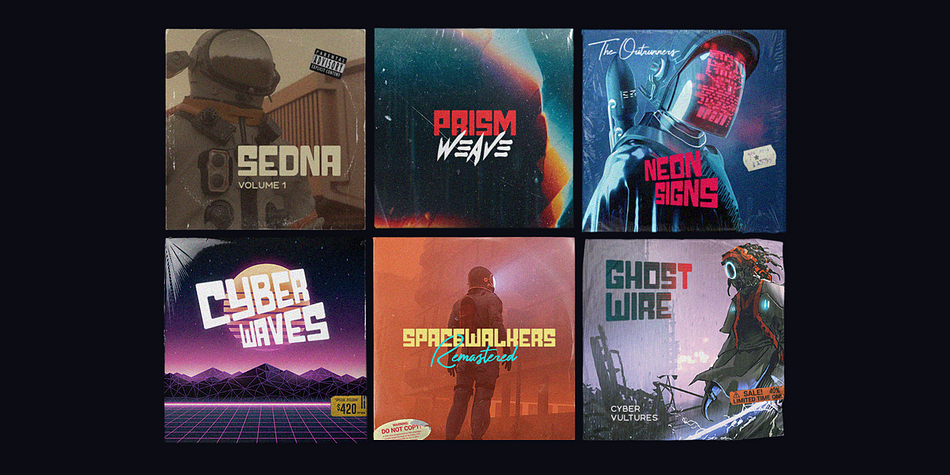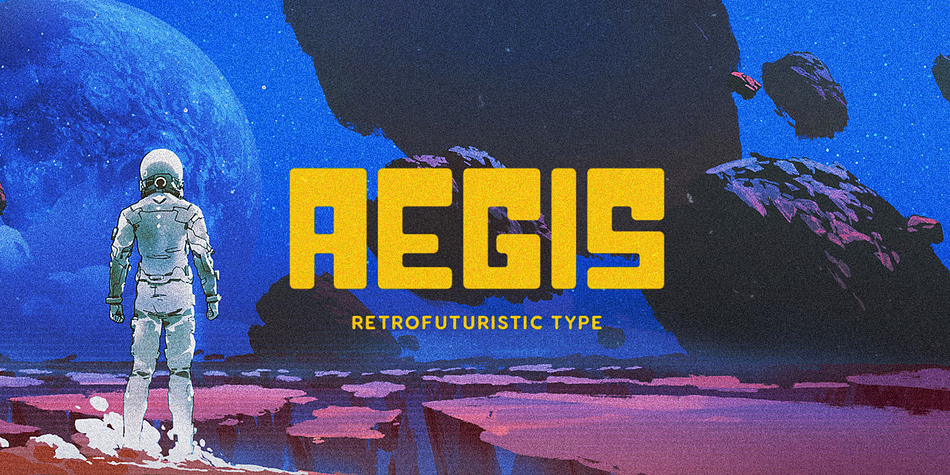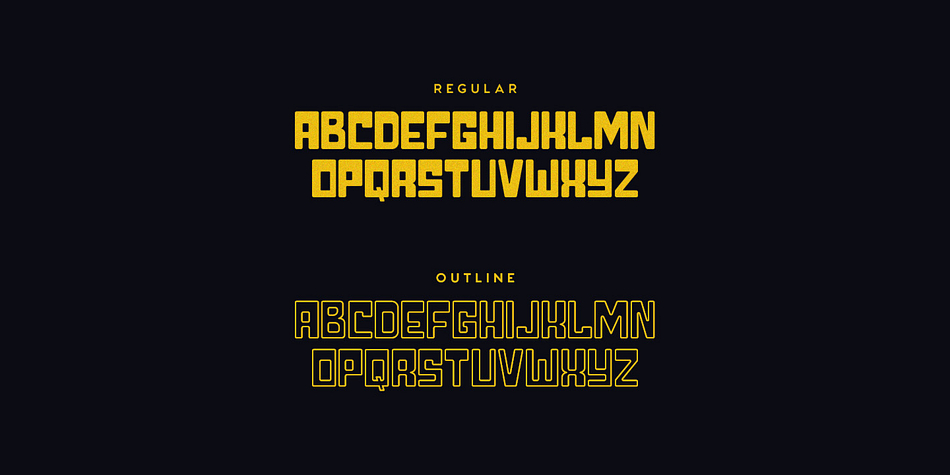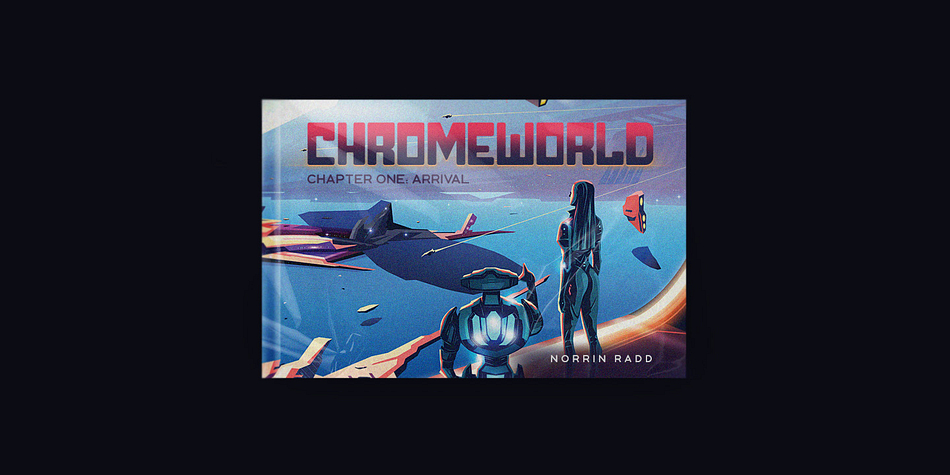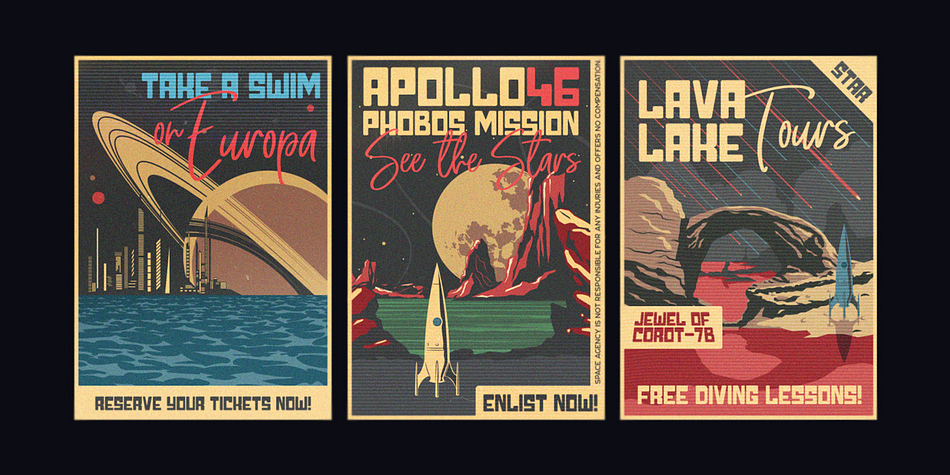
Aegis is a display sans and retro font family. This typeface has two styles and was published by Tugcu Design Co.
Aegis is a retrofuturistic display font that pairs well with other script and brush fonts. Comes in regular and outlined styles.